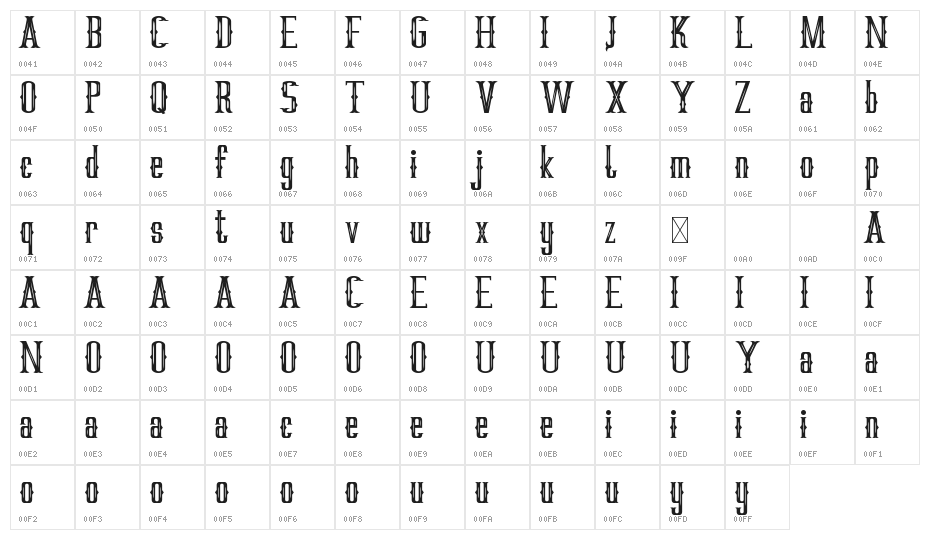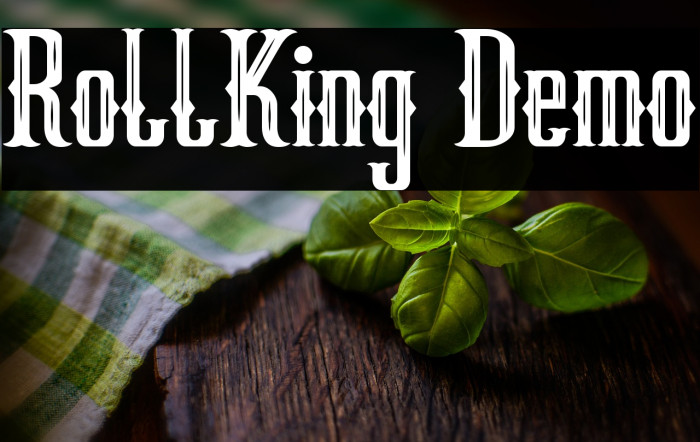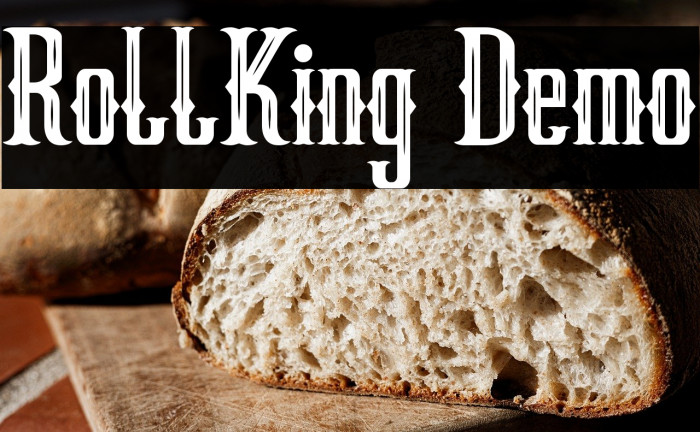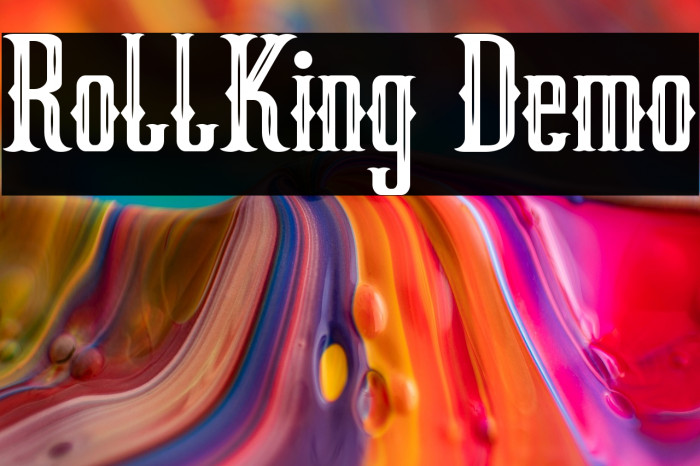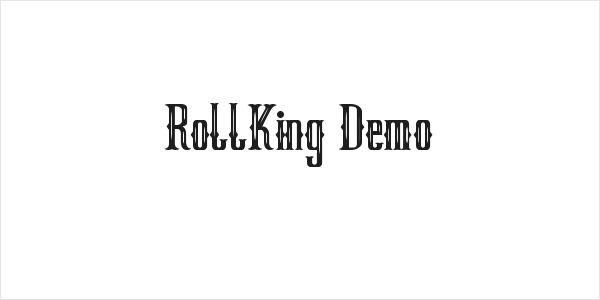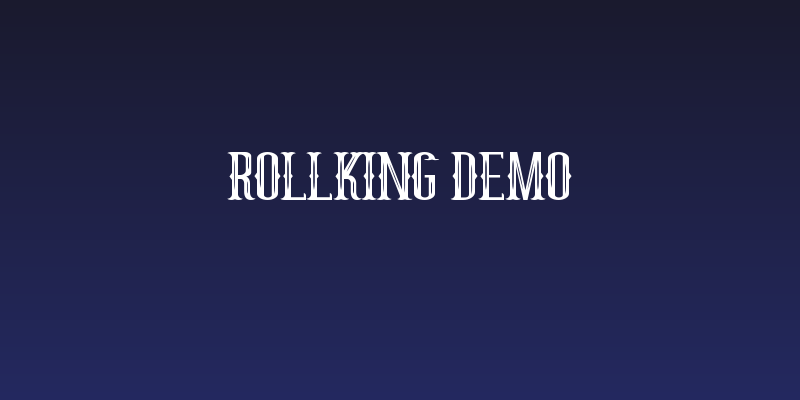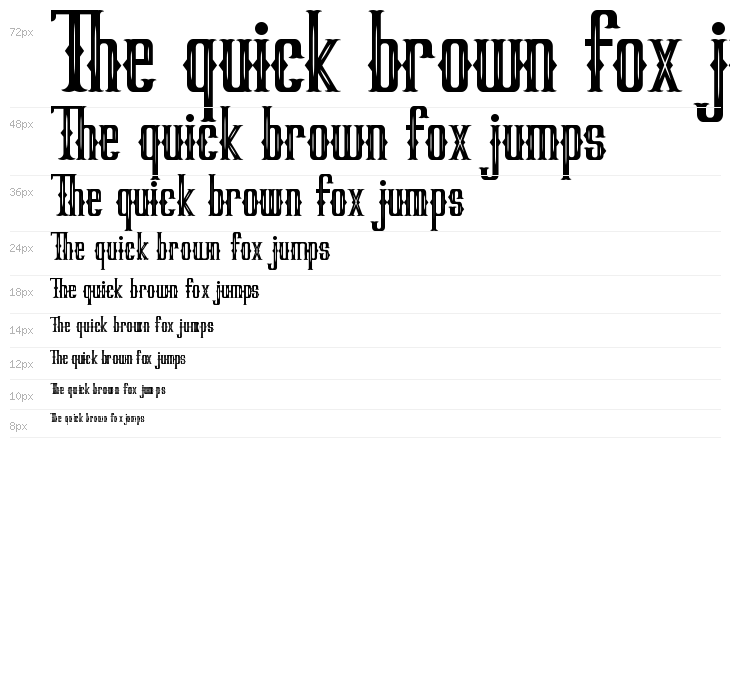
RollKing Demo Font
RollKing Demo Description
This font features a bold, decorative style with intricate details and sharp edges. The uppercase letters are tall and narrow, with unique embellishments that give them a striking appearance. The lowercase letters maintain the same decorative flair, with consistent height and spacing. Numbers and special characters are designed to match the ornate style of the alphabet, ensuring a cohesive look across all text. The font's high contrast between thick and thin strokes adds to its dramatic and eye-catching effect, making it ideal for attention-grabbing designs.
| Proposed Projects | This font is perfect for projects that require a dramatic and eye-catching design, such as posters, logos, album covers, and branding materials. |